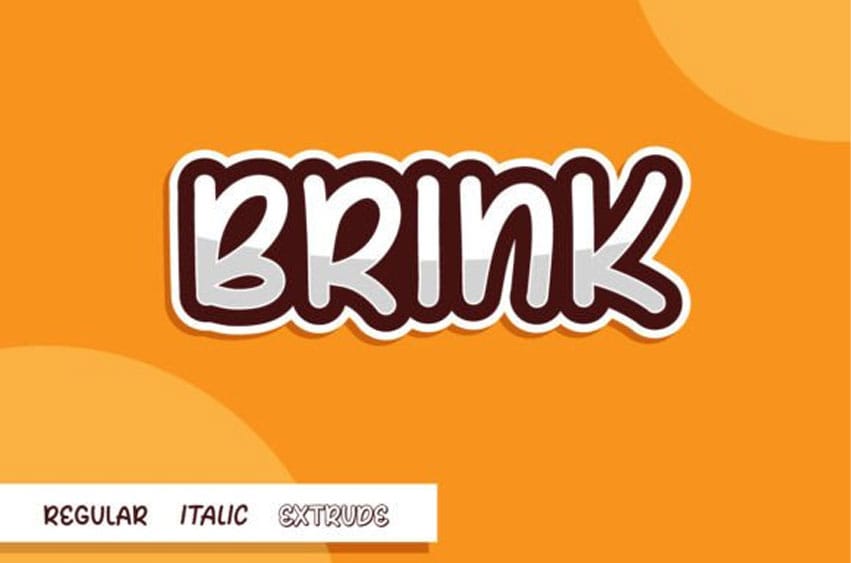
Brinx Font is a simple, playful comic font.
Brink can be used in any work, such as a storybook, comic book, school, flyer, book title, advertisement, social media content, logo, and many more.